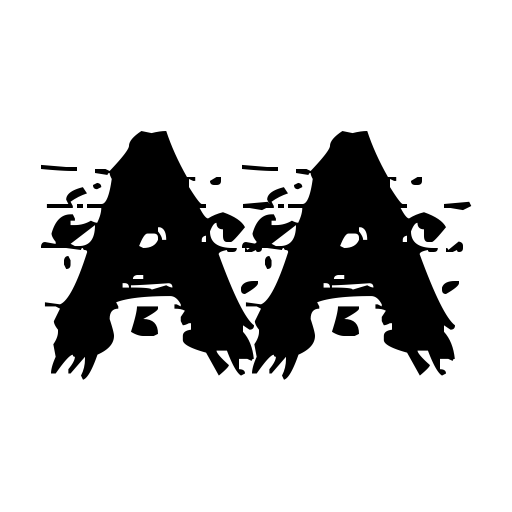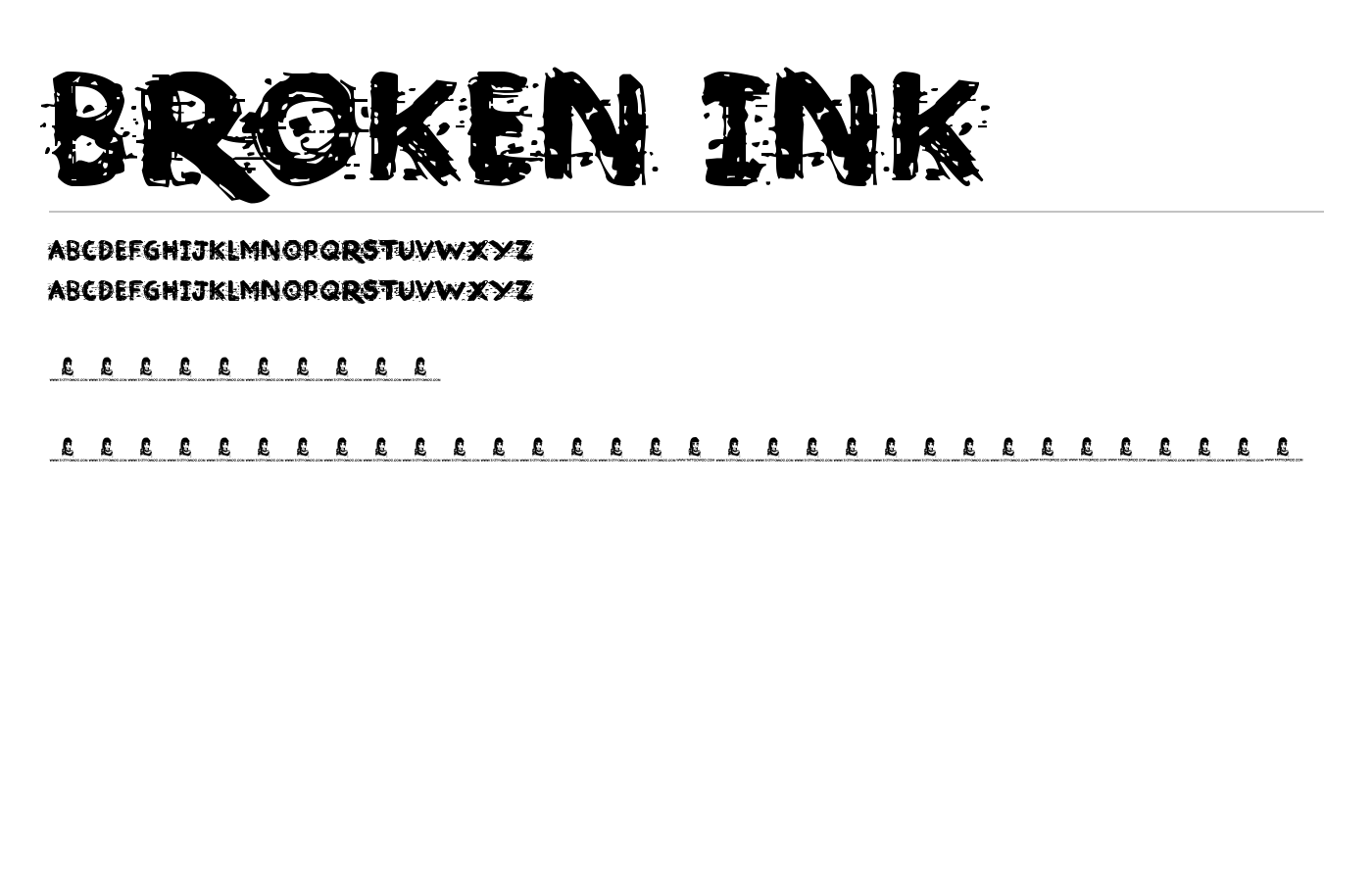
Broken Ink is a bold, distressed sans serif font with a rough, textured appearance that mimics splattered or worn ink. Its irregular edges and heavy weight give it a raw, edgy feel, making it perfect for designs that seek a rebellious, grunge, or urban vibe. This font works well in posters, logos, and creative projects where an informal, artistic expression is desired.
Broken Ink Font
About Broken Ink Font